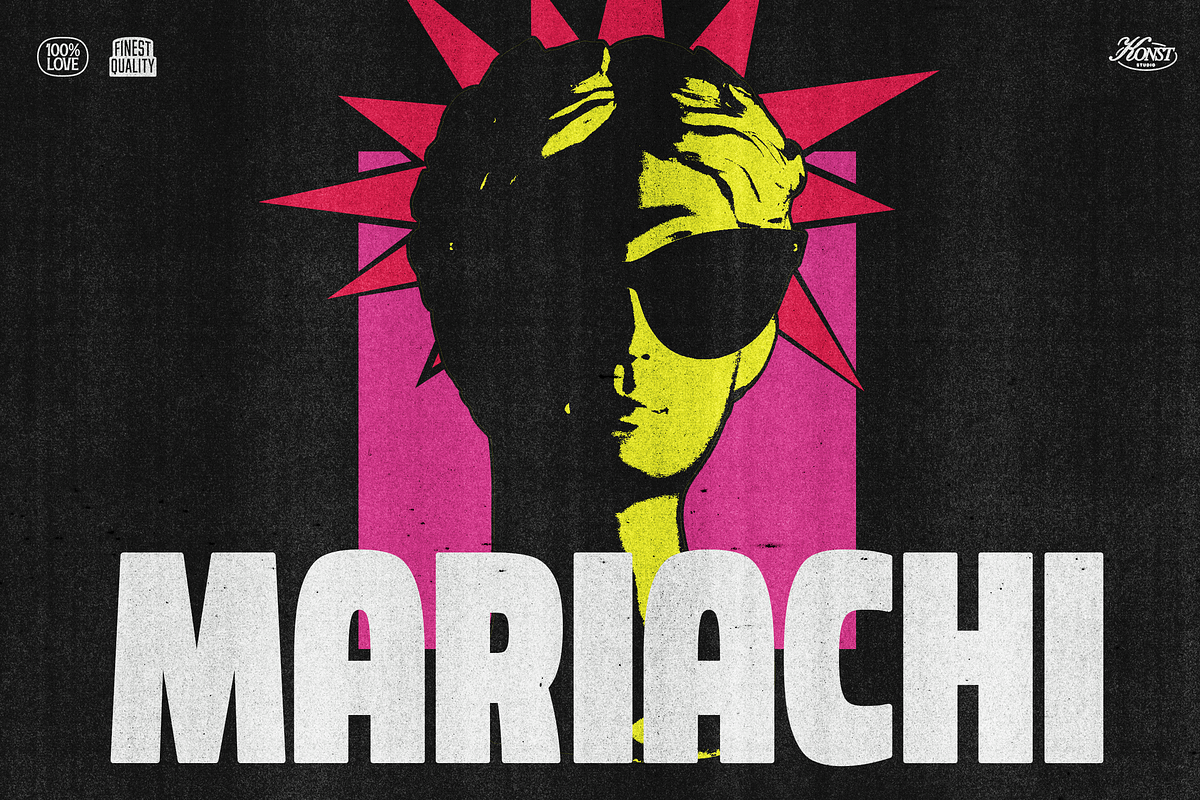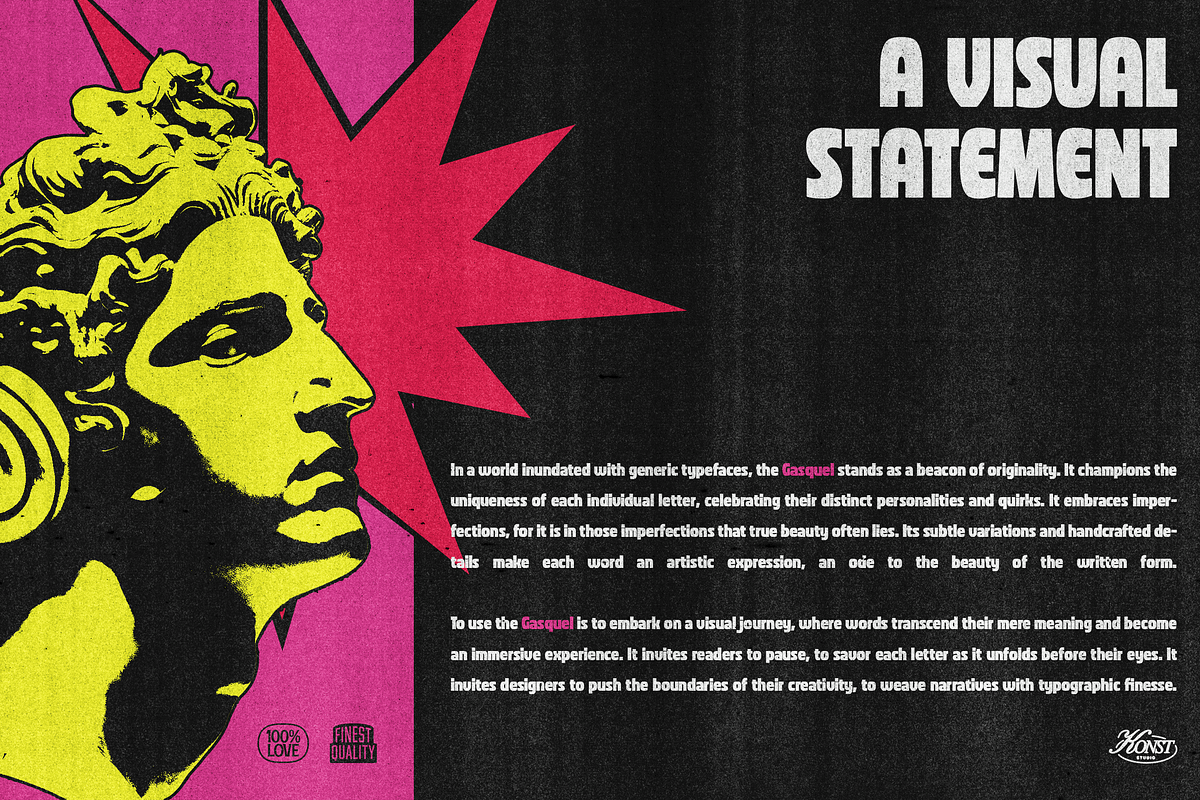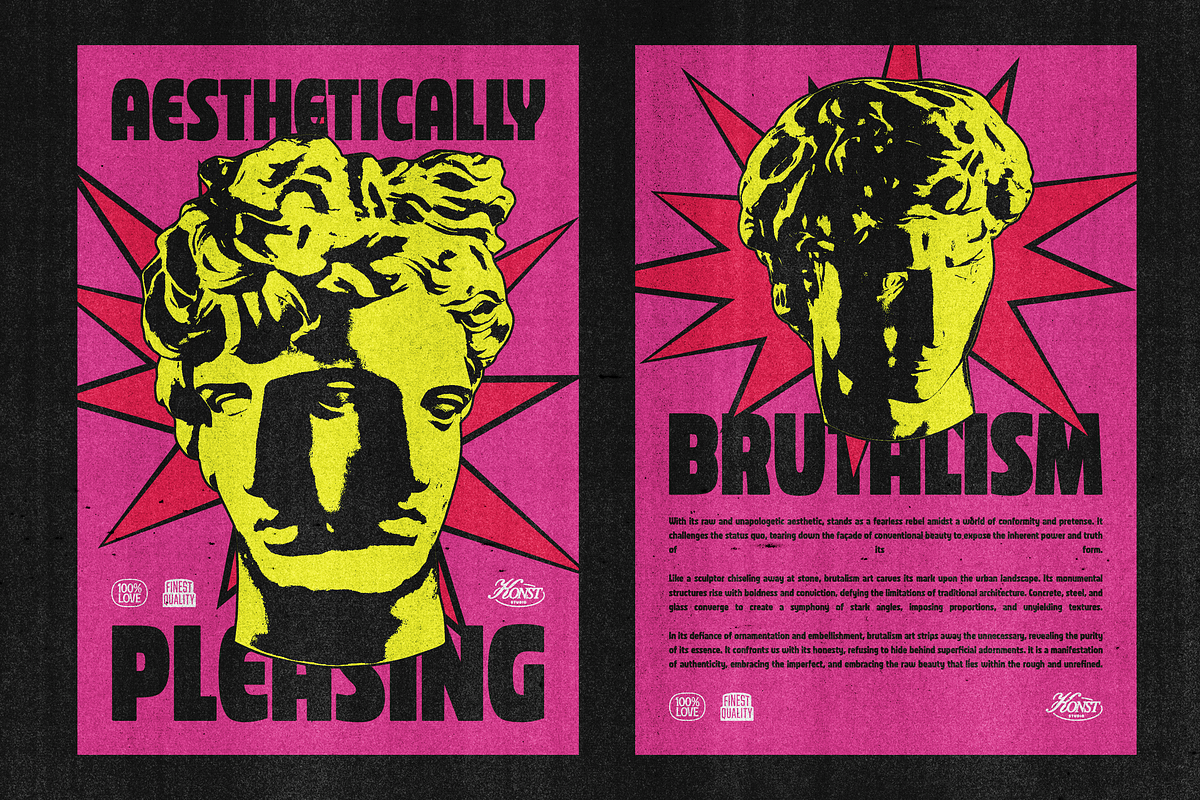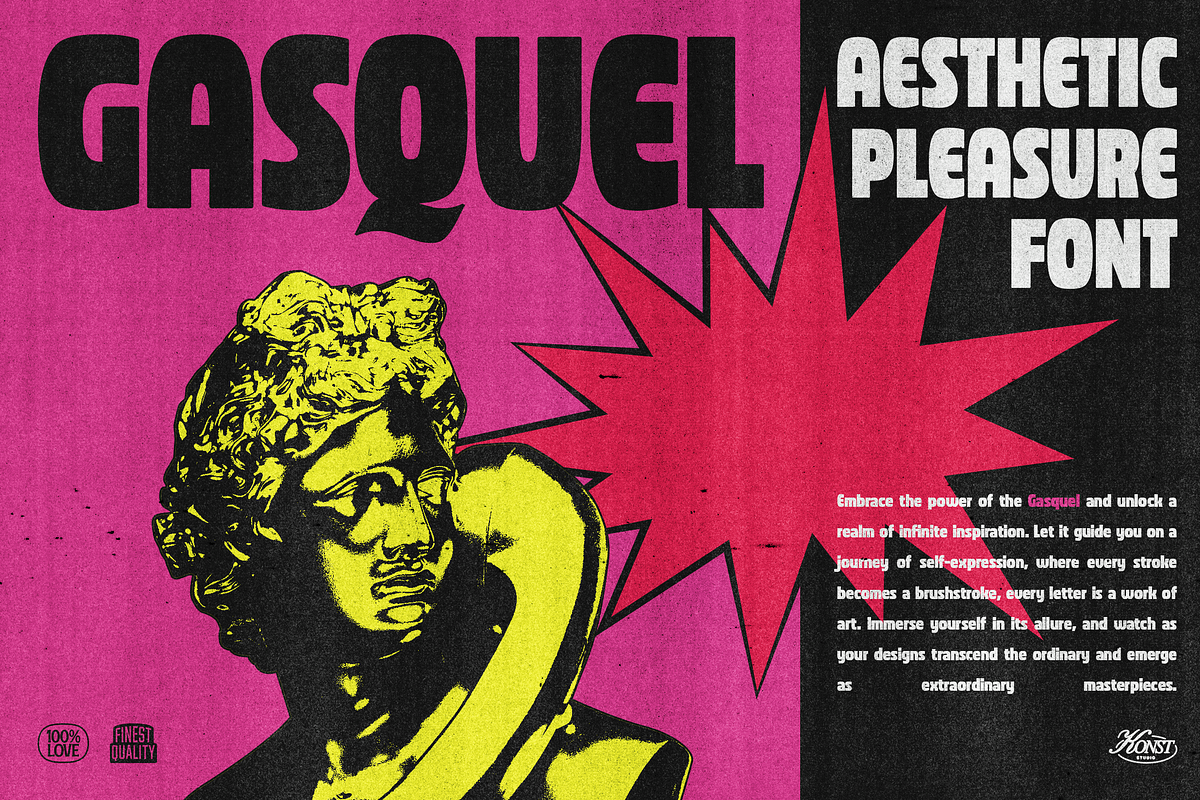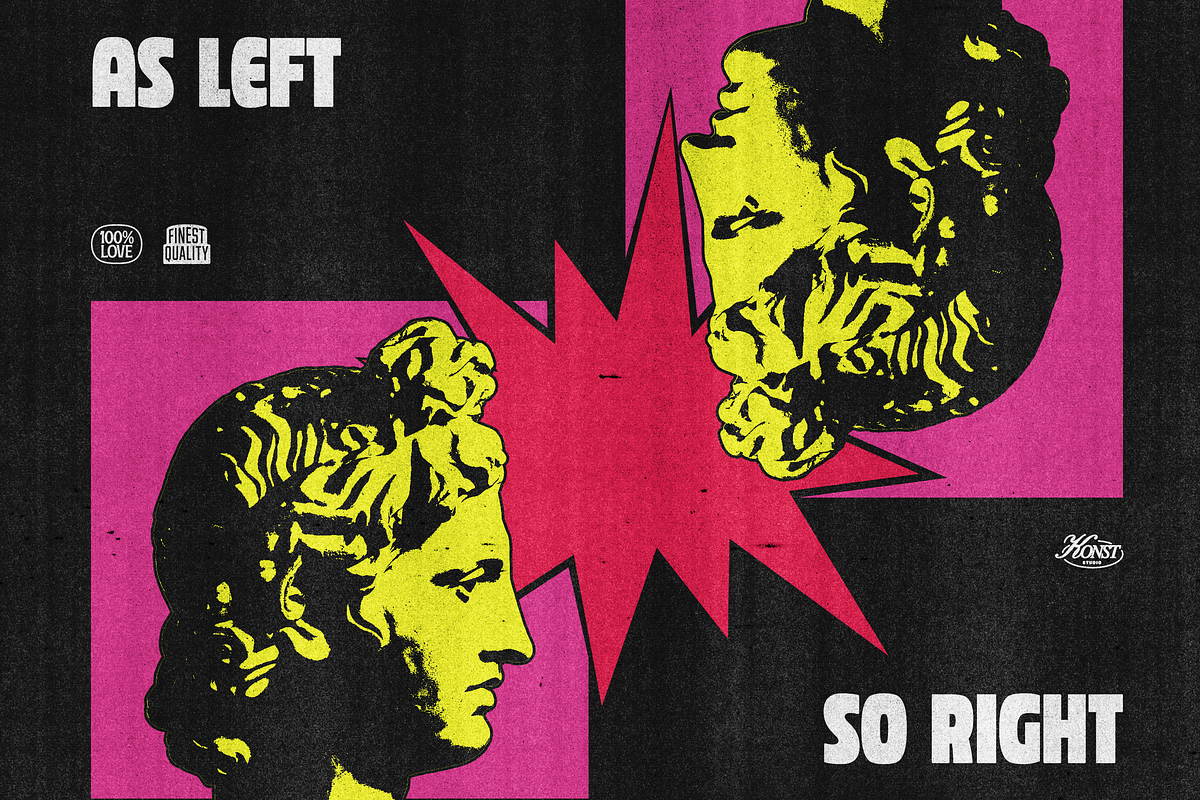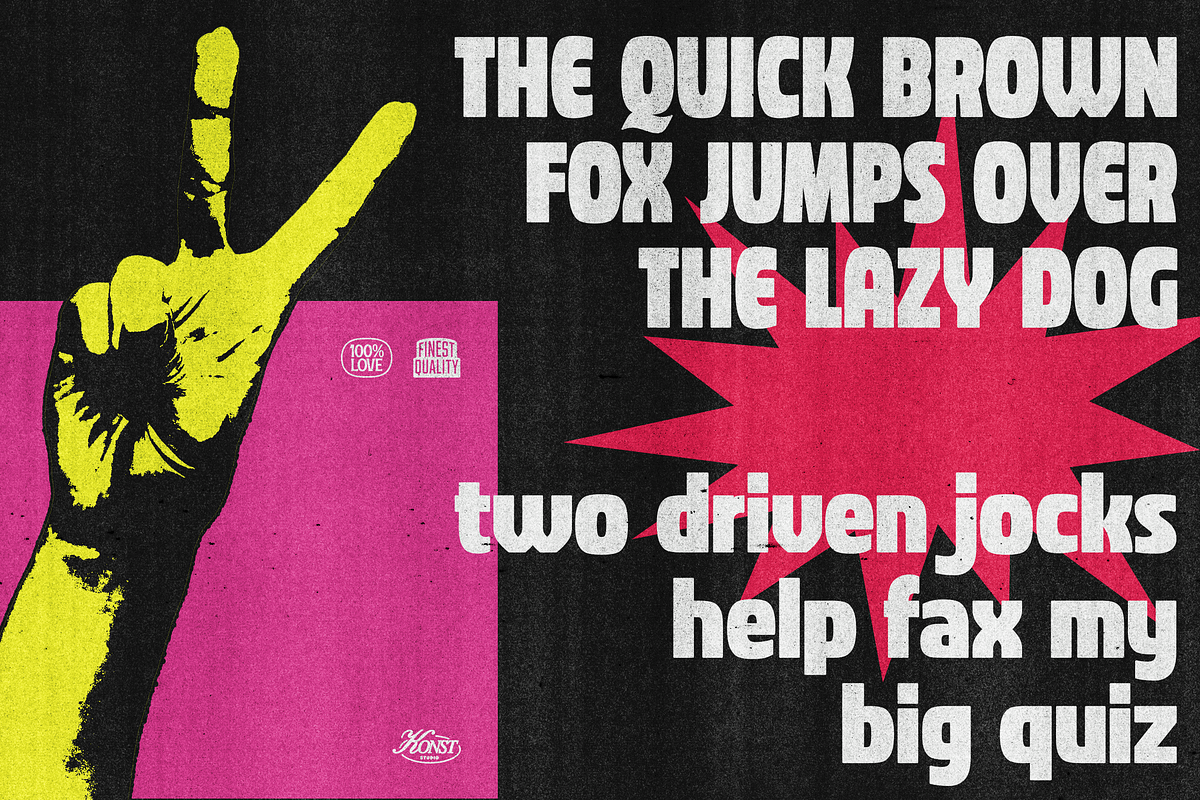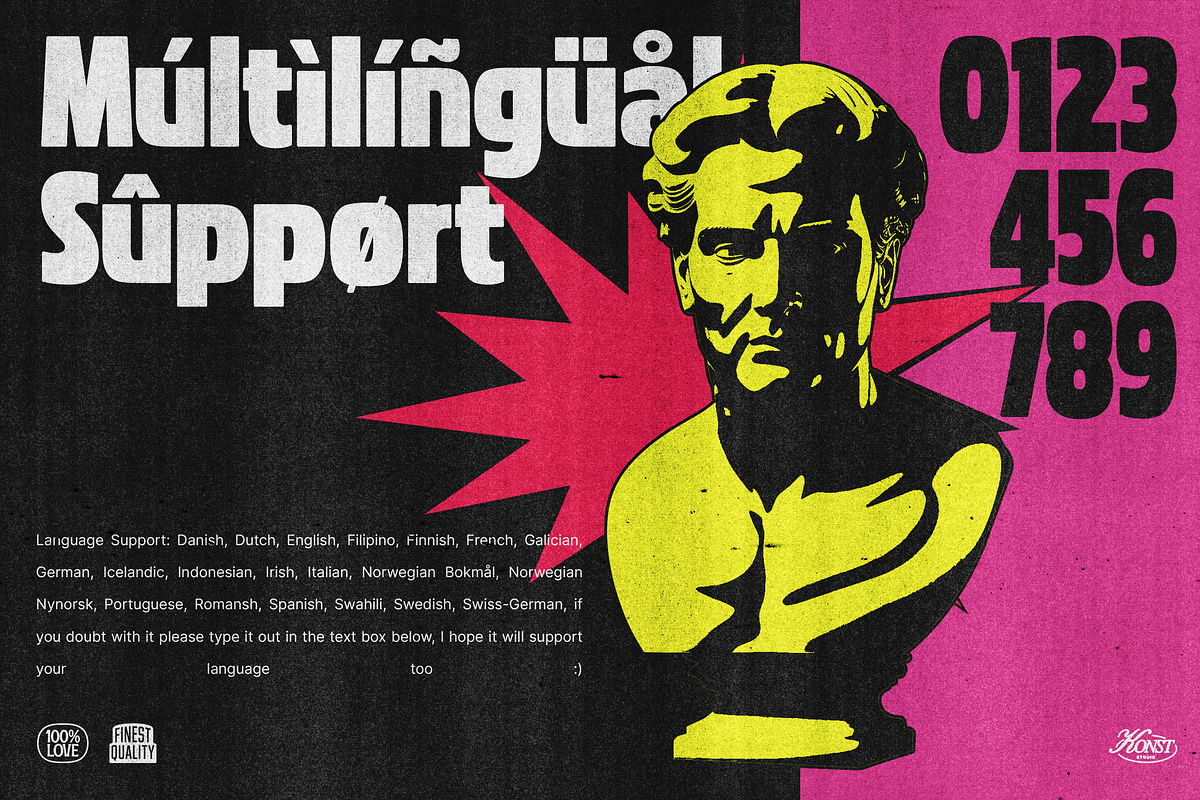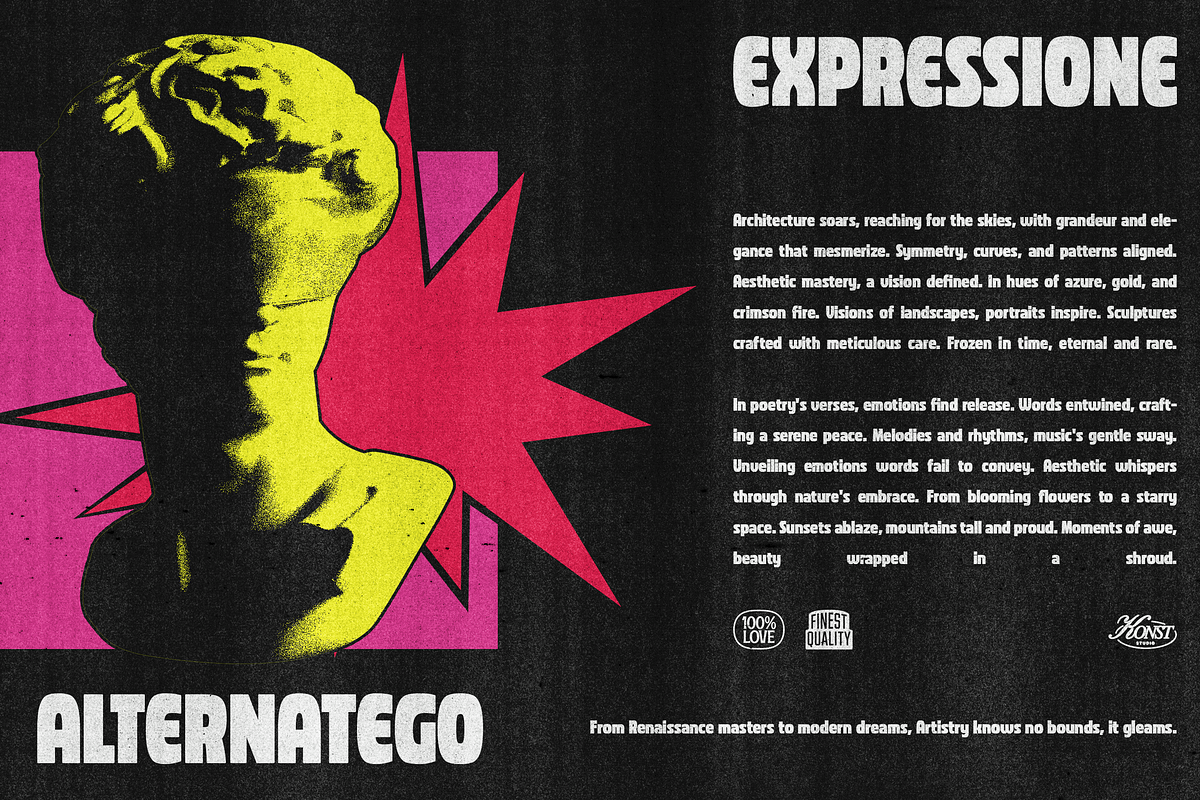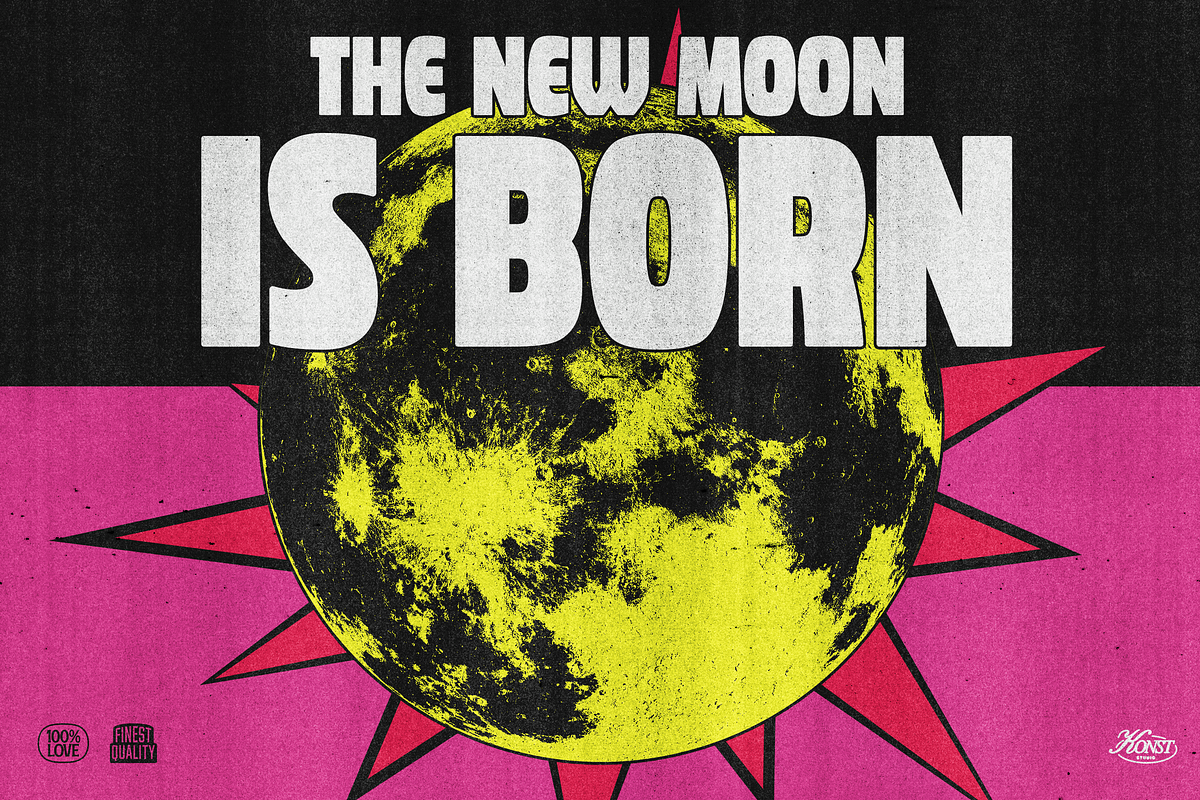
Gasquel - Aesthetic Bold Fonts
Are you tired of bland, cookie-cutter fonts that lack personality and style? Step into the vibrant world of Gasquel and watch your designs come to life!
Ignite your creativity with Gasquel, inspired by the bold and rebellious spirit of the past. Each letter is meticulously crafted to add a touch of nostalgia and edginess to your projects. Whether you're designing a logo, poster, website, or social media content, our fonts will make your message pop off the page!
Unleash the power of your imagination as you mix and match the Gasquel to create truly unique compositions. From grungy graffiti-inspired lettering to playful and colorful retro styles, our collection has something for every artistic vision. Let your designs reflect your personality and capture the essence of the era you love.